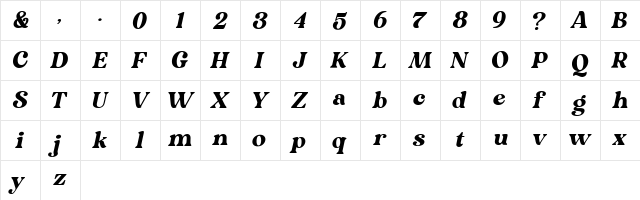
Sekogure Italic
| Foundry | Kulokale |
| Designer | M Arif Dwi Prasetyo & Eko Nurcahyo |
Design Context for Sekogure Typeface
Sekogure offers clean, dependable letterforms without strong stylistic allegiance, making it a practical choice for designers who need flexibility. The slanted form adds forward momentum and visual energy.